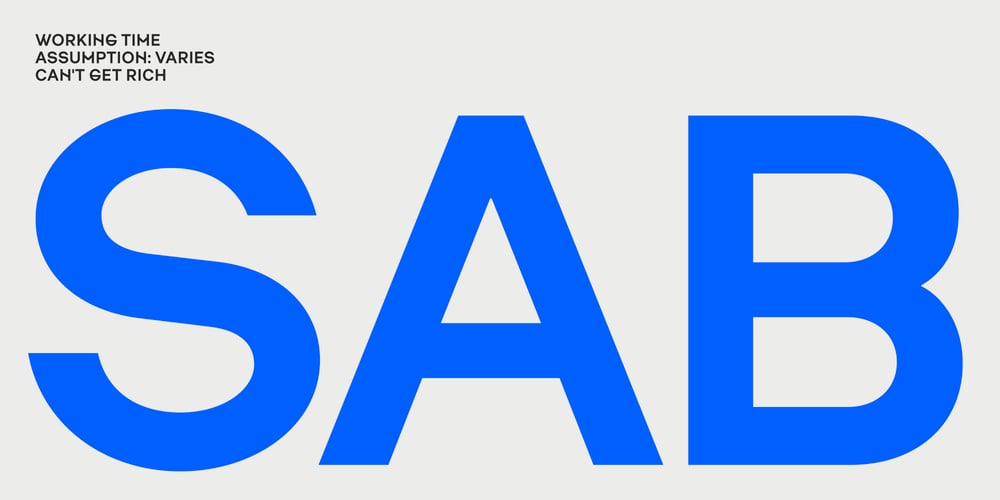
Sablon B
Sablon B font
Sablon B Font Family was designed by Roman Cernohous and published by Roman Cernohous Typotime. Sablon B contains 4 styles and family package options. As a stand-alone version of our original Sablon, Sablon B delivers a bold expression without any distracting moments. The completely redesigned letters and numerals are available in four weights and are complemented by a vintage stylistic set based on lower horizontal lines. Wide language support including a complete set of Cyrillic characters.